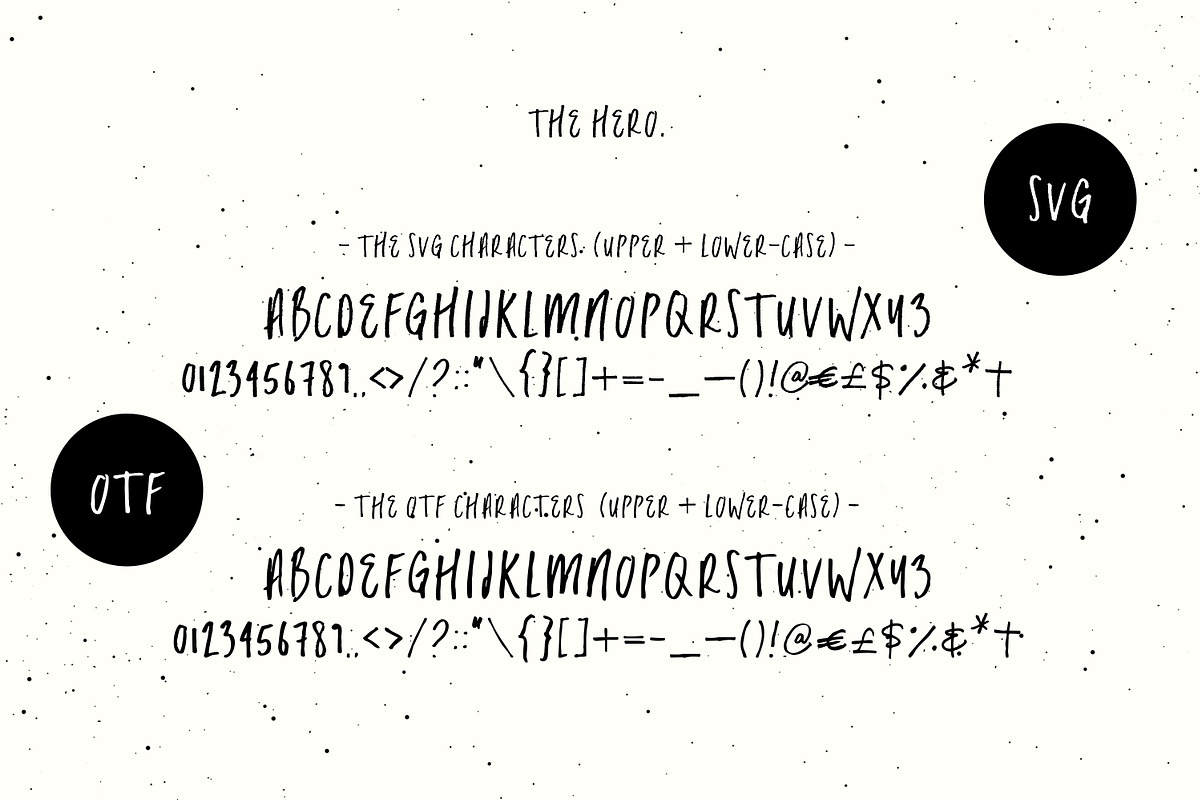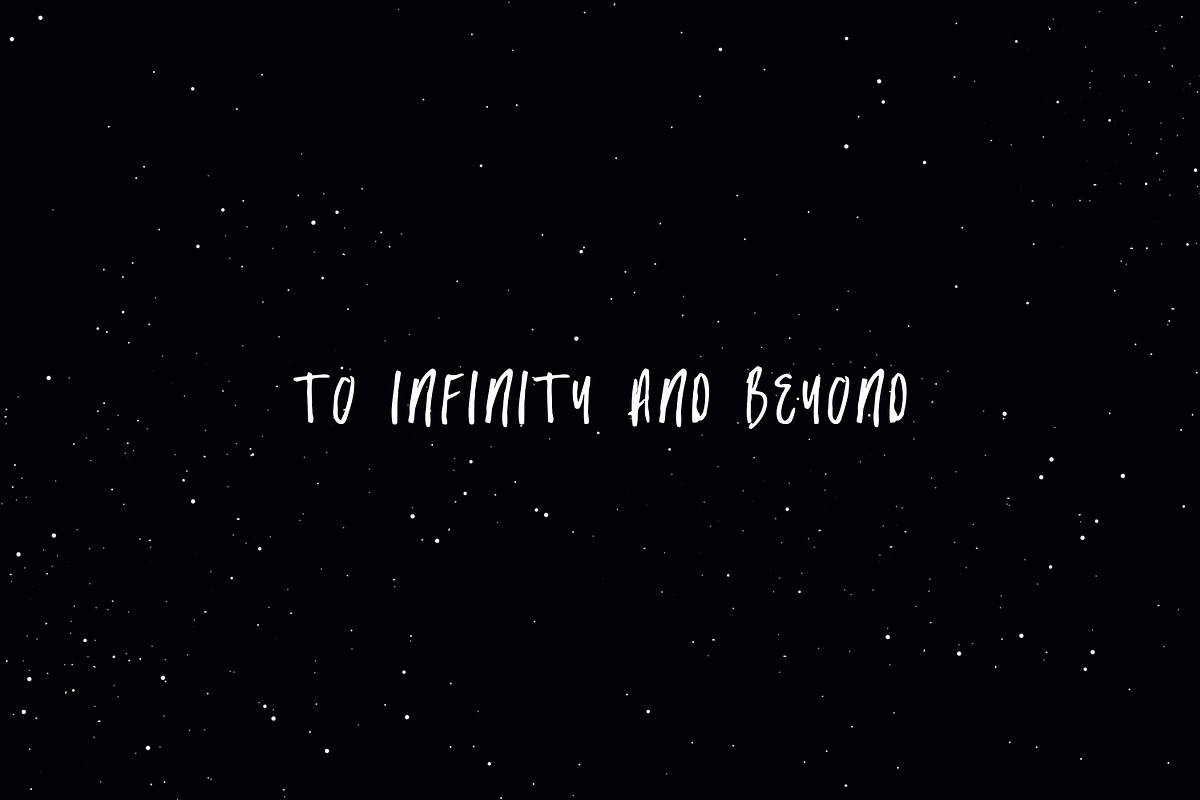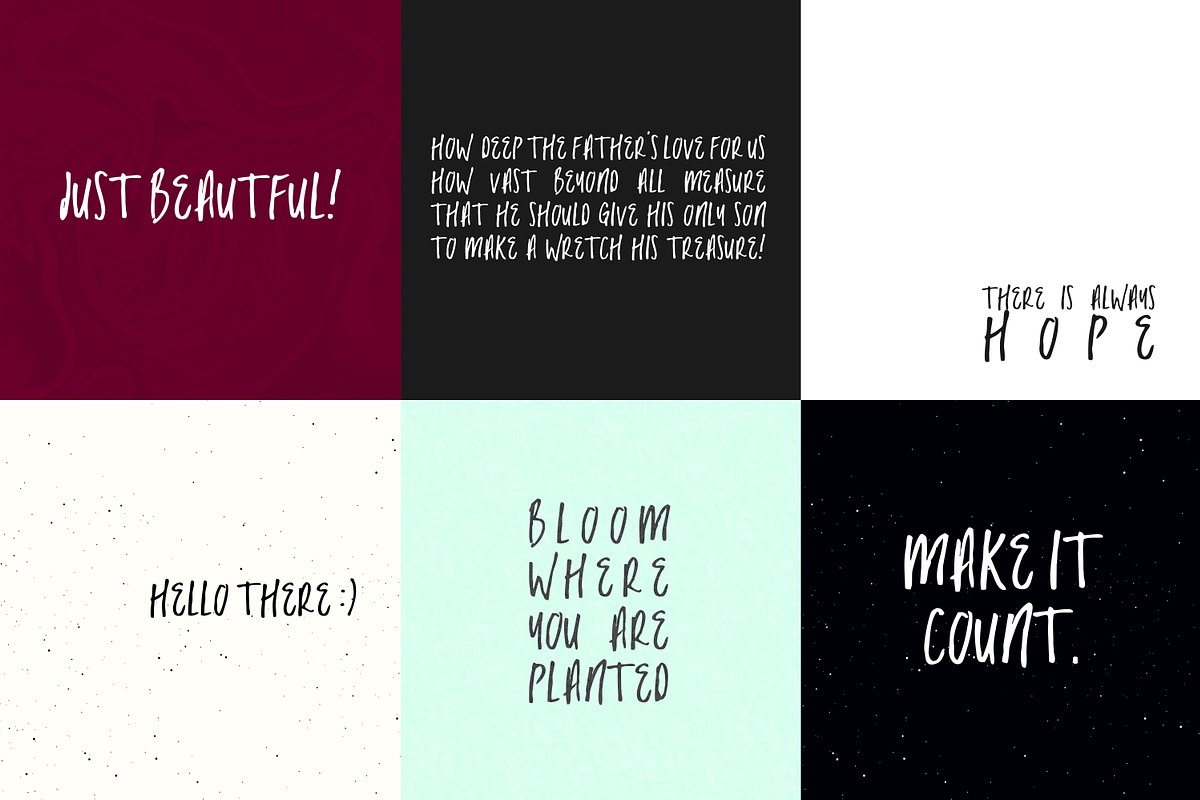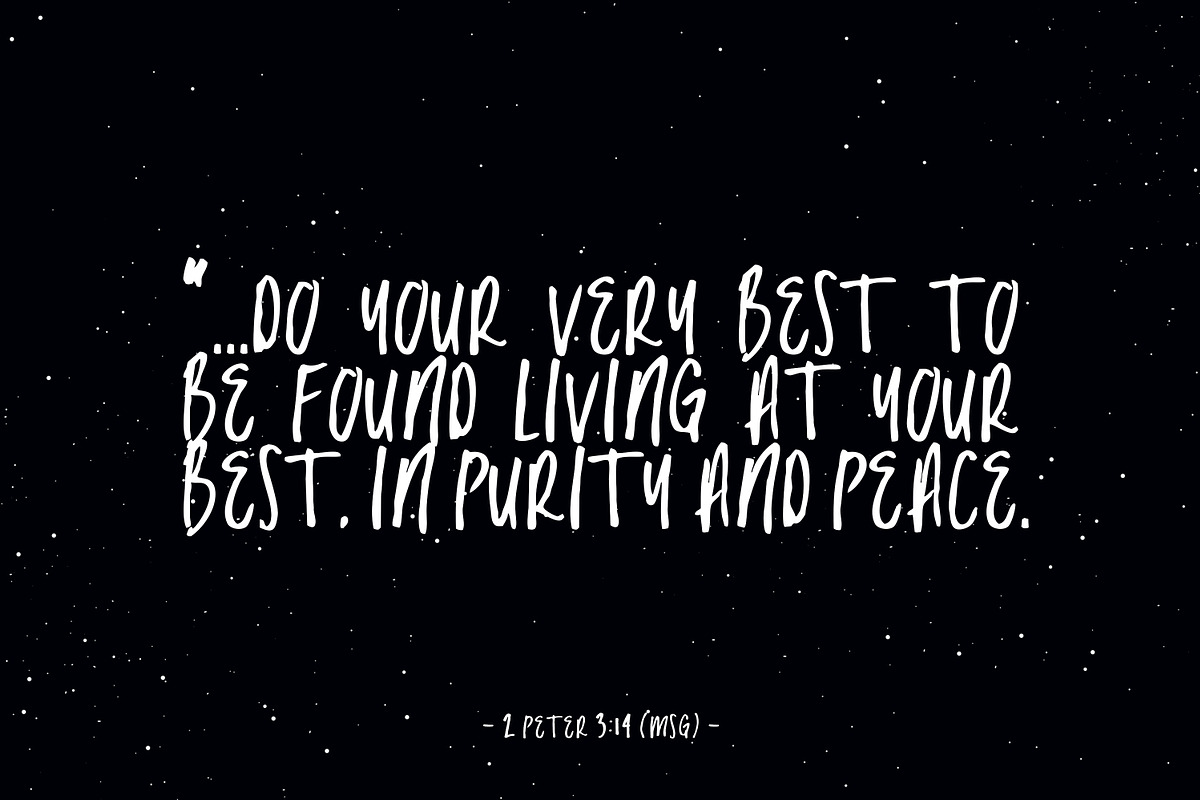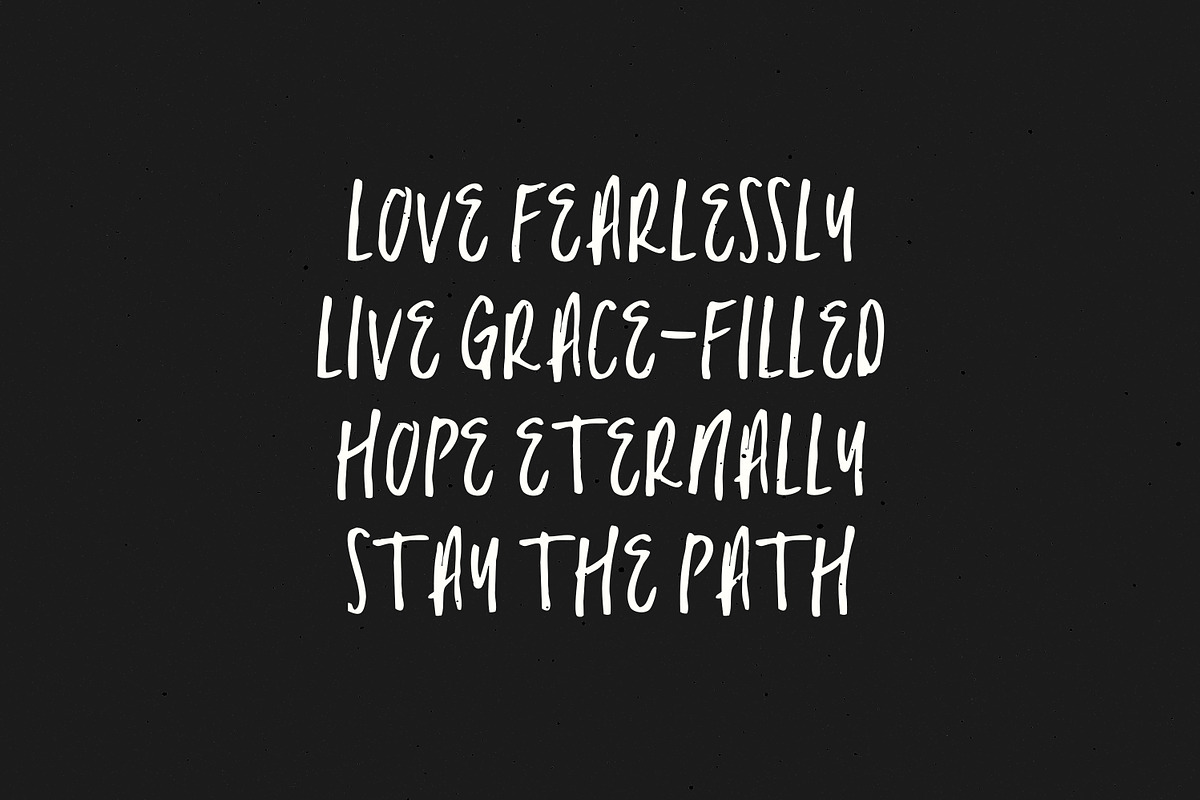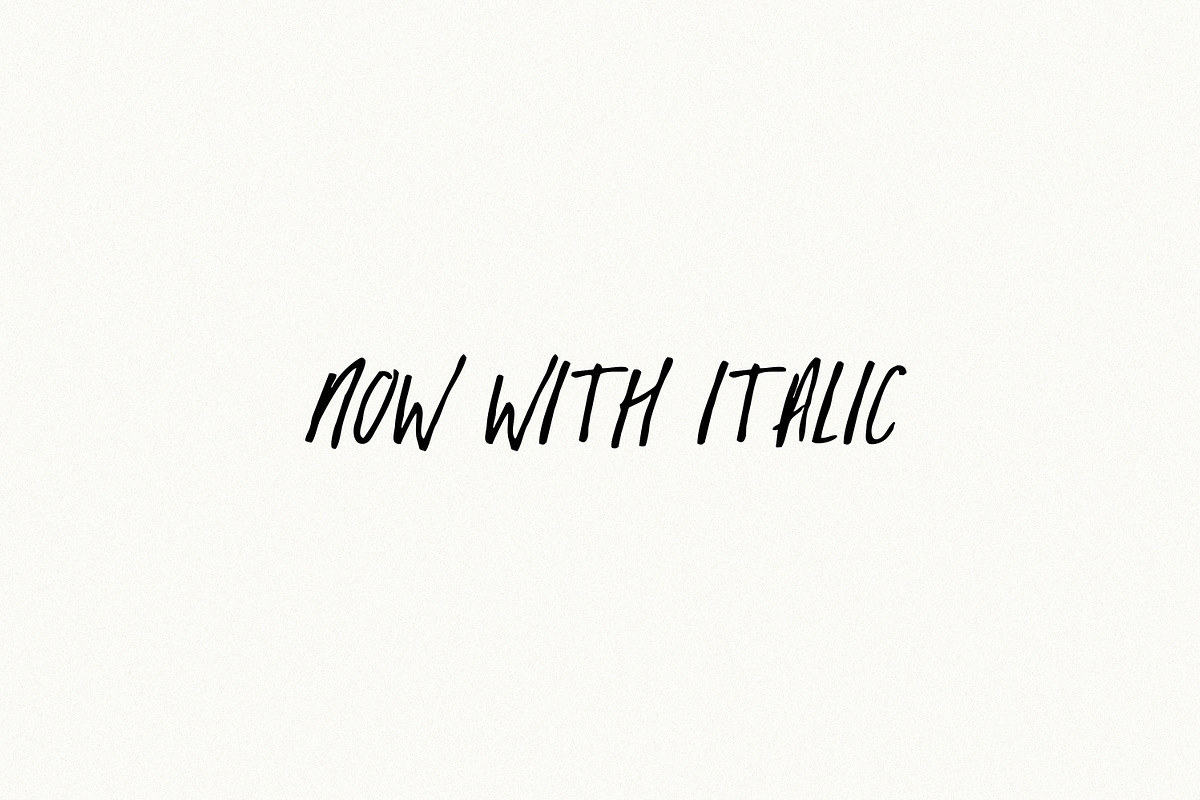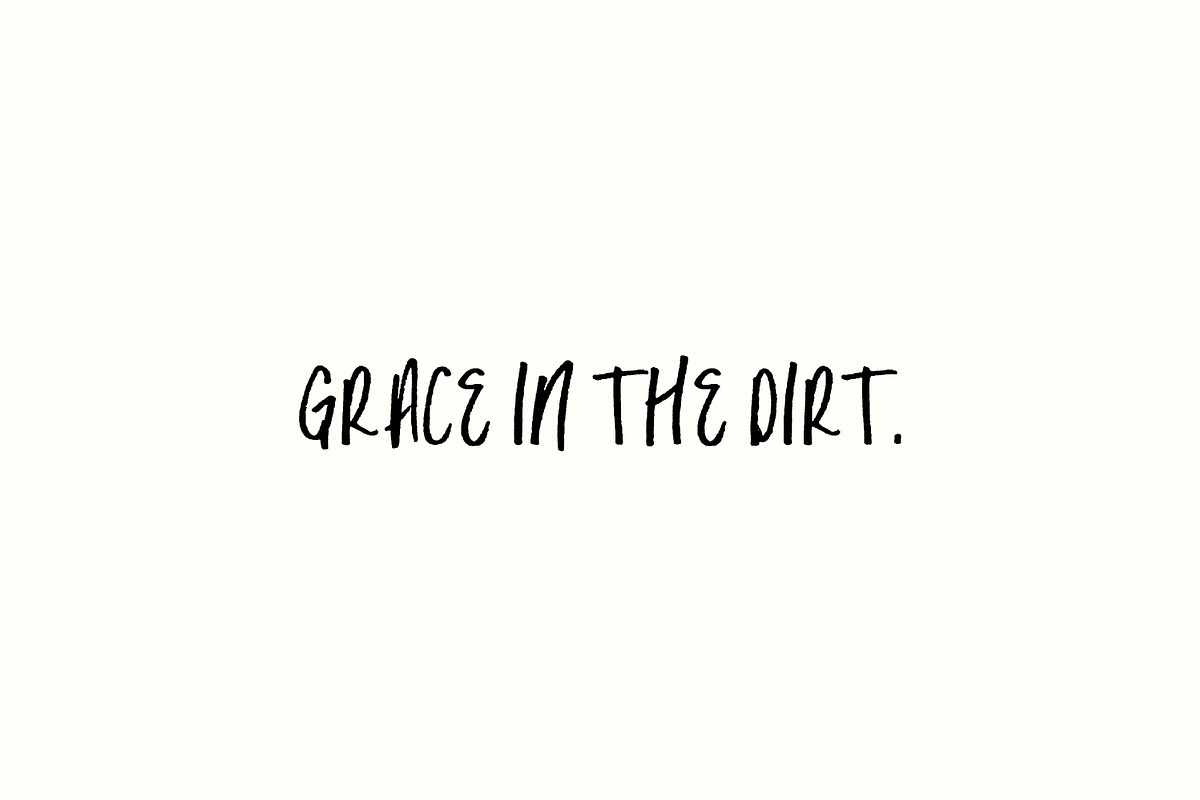
The Hero | Script Font
Welcome The Hero – a super, new script font (and my first ever SGV font)!
For the brave, the bold and the believer.
Why The Hero | Script Font is worth a look
The Hero | Script Font by Heart + Soul Studios fits naturally into Branding, posters, packaging, typography.